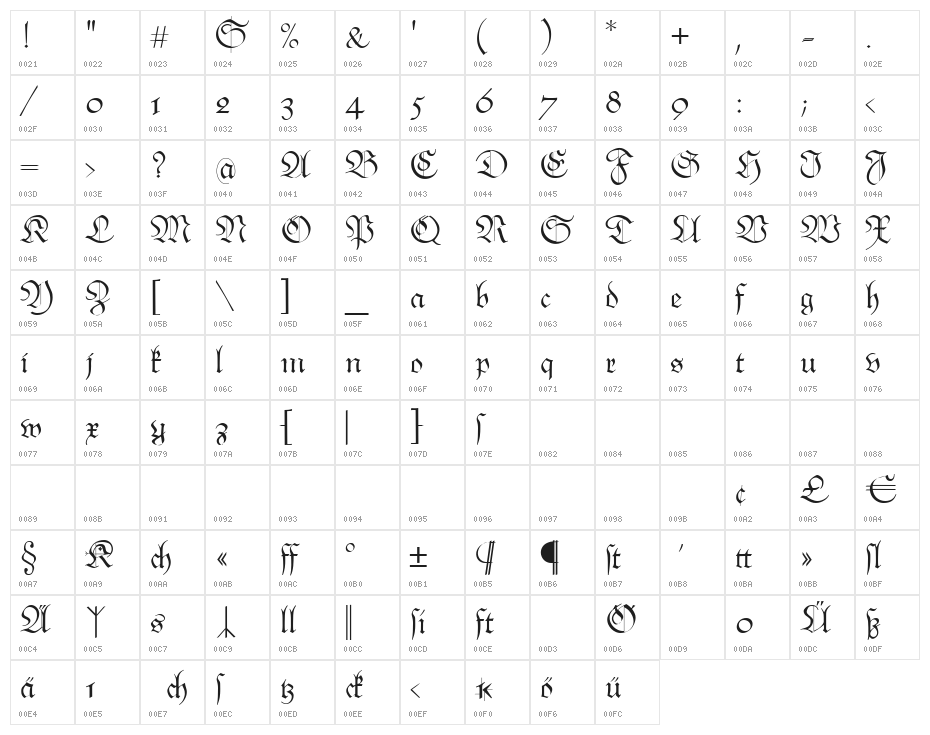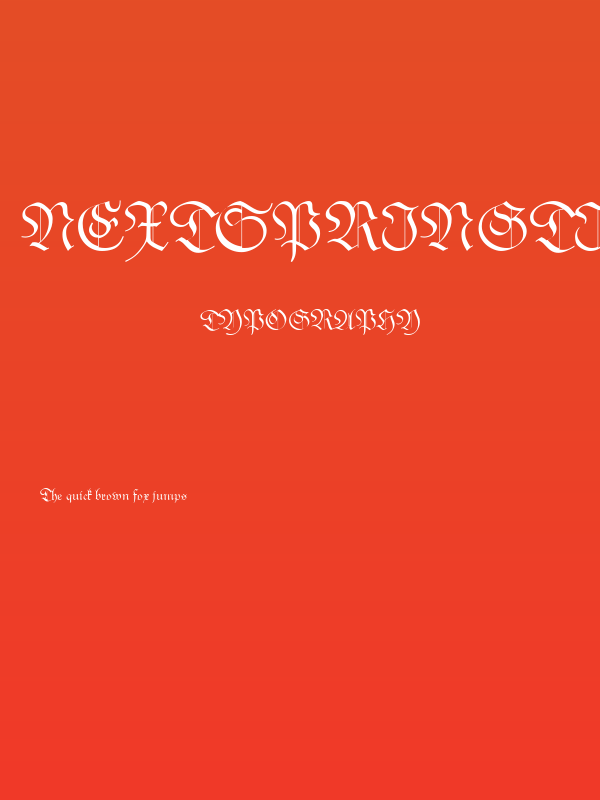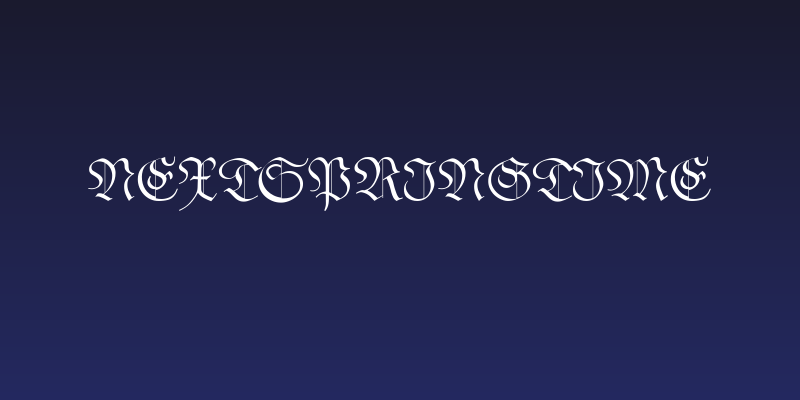
NextSpringtime Font
NextSpringtime Description
This font exhibits a classic blackletter style, characterized by its intricate and ornate letterforms. The uppercase letters are highly decorative, with elaborate curves and sharp angles, reminiscent of medieval script. The lowercase letters maintain a similar aesthetic, with a slightly more restrained design that enhances readability. The numerals are bold and consistent with the overall style, featuring sharp edges and a traditional appearance. Special characters are crafted with the same attention to detail, ensuring a cohesive look across all glyphs. This font's historical and artistic qualities make it stand out, offering a unique blend of elegance and tradition.
| Use Case | Logos, Headlines, Decorative purposes |
| Proposed Projects | Ideal for historical documents, wedding invitations, certificates, and branding that requires a traditional or gothic touch. |